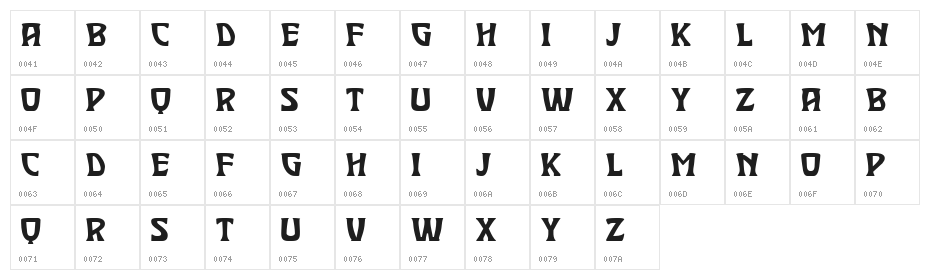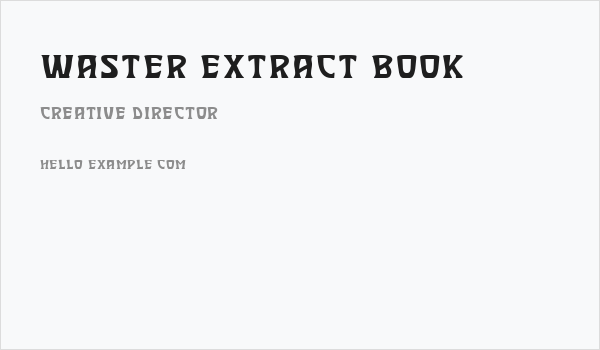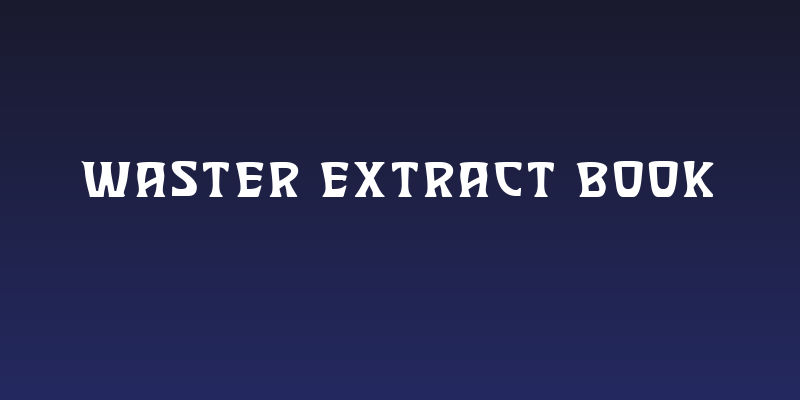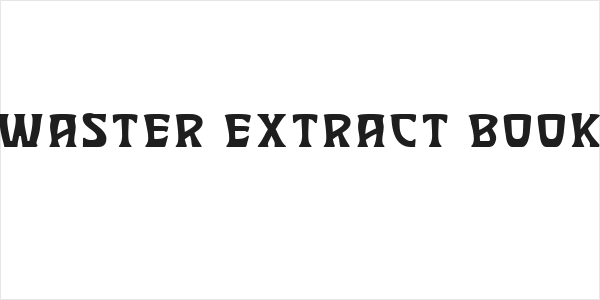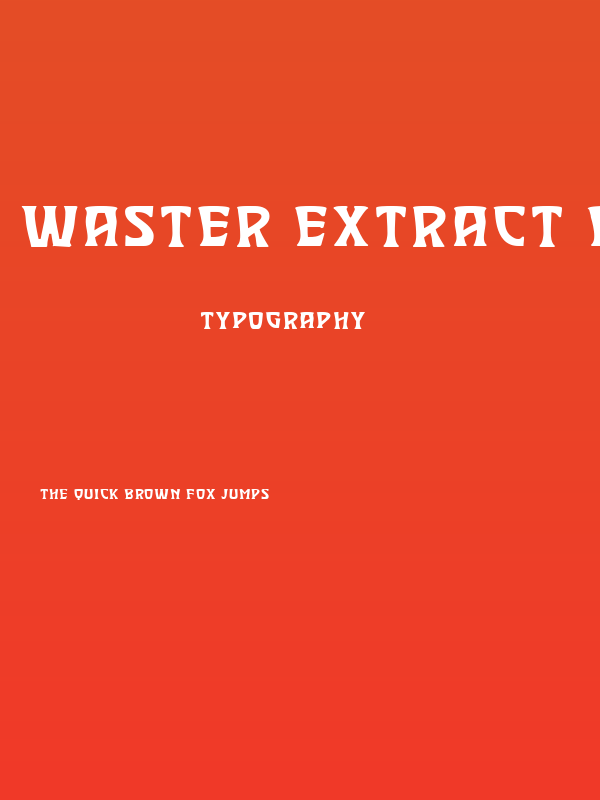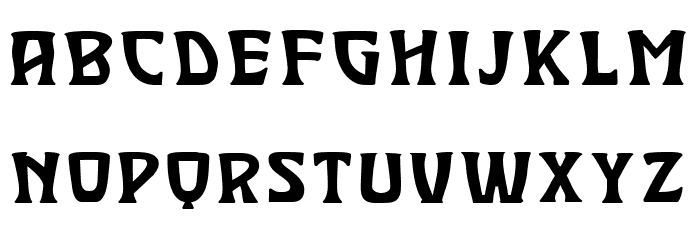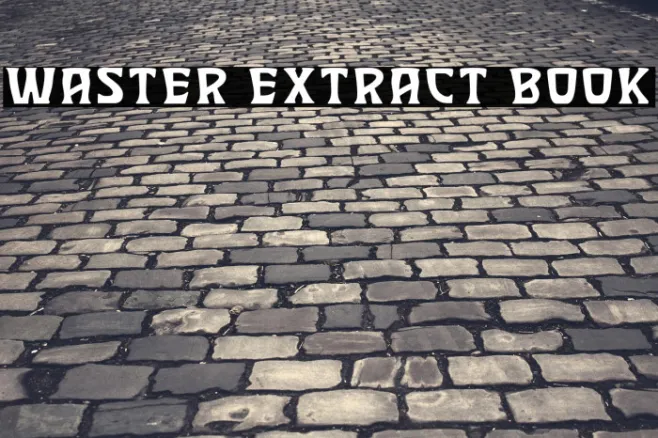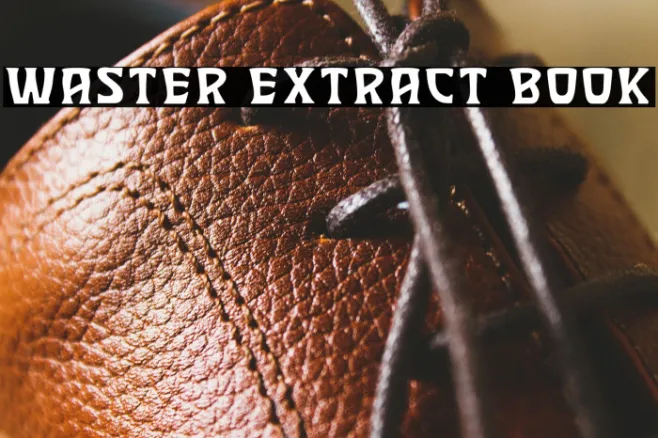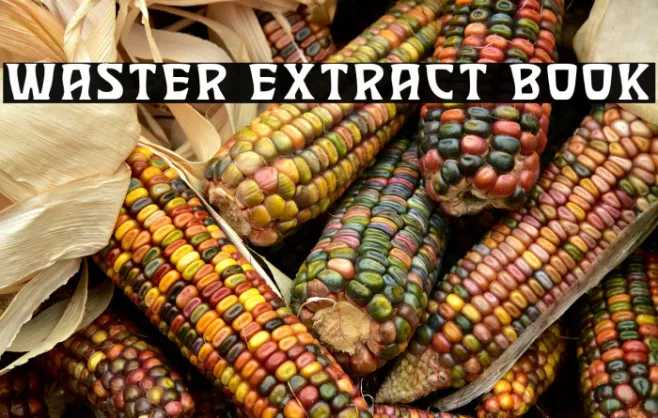
Waster Extract Book Font
Waster Extract Book Description
This font features a bold and striking design with a distinct medieval flair. The characters are crafted with sharp, angular edges and a slightly condensed form, giving them a strong and authoritative presence. The uppercase letters exhibit a uniform height, while the lowercase letters maintain a consistent style, enhancing readability. The numerals and special characters are designed to complement the overall aesthetic, making this font suitable for projects that require a touch of historical or fantasy elements. The bold strokes and unique character shapes make it ideal for attention-grabbing headlines or titles.
| Overall Style | Medieval, Decorative |
| Proposed Projects | Perfect for fantasy book covers, medieval-themed event posters, or video game titles. |